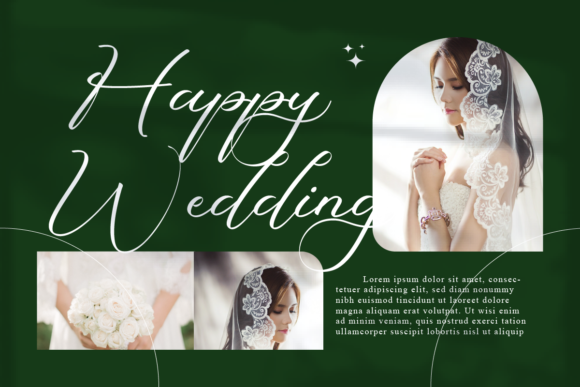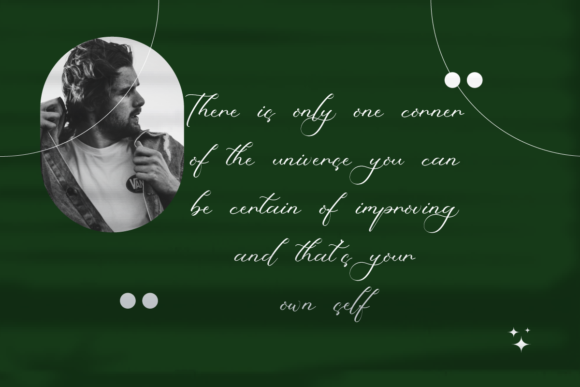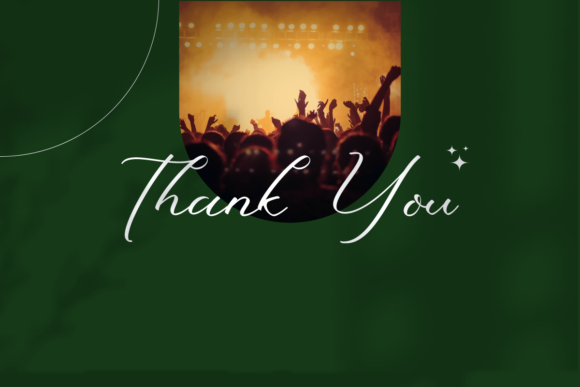
About Yazmin Magdalena Font
Yazmin Magdalena is a stylish and chic script font. You can use it for various projects, such as blog posts, logos, branding, ads, invitations, greeting cards, planners, photo albums, decorations, and much more.